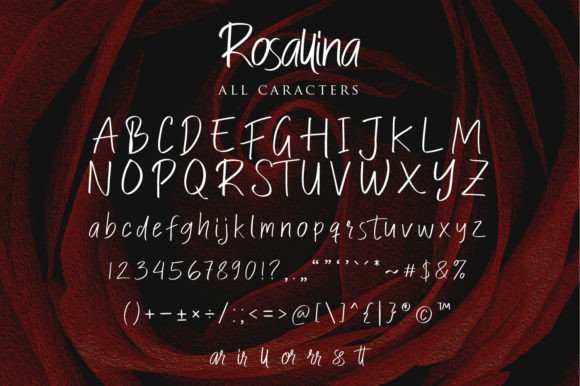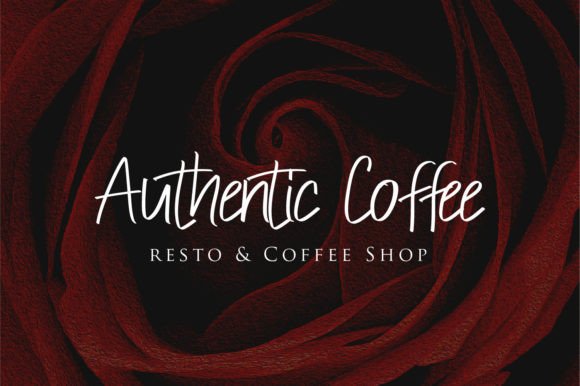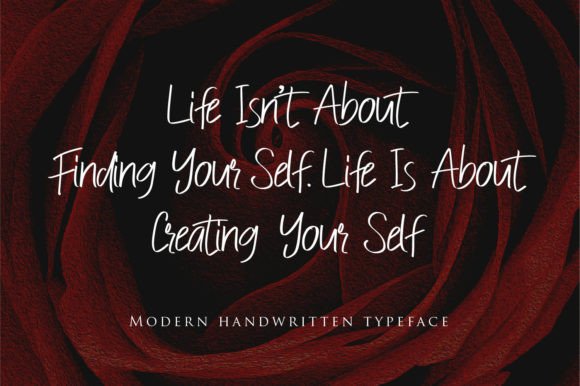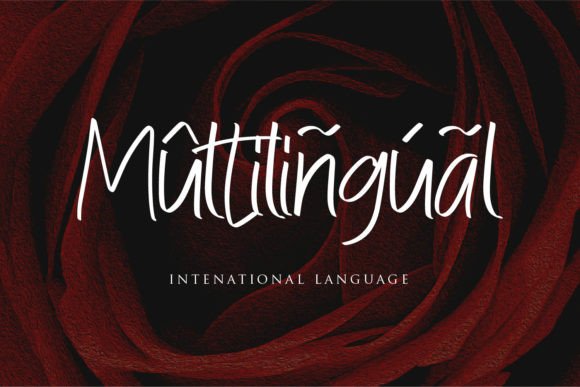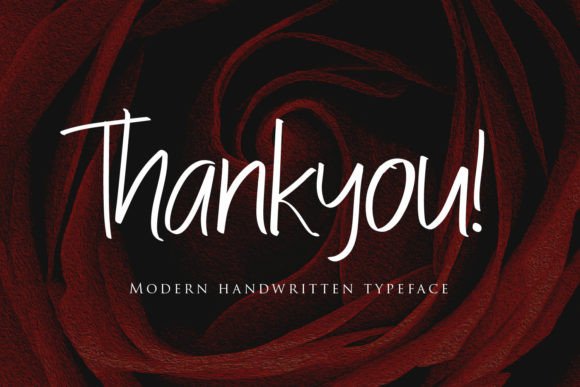
Introduction to Rosallina Font
Rosallina is a modern handwritten script font that embodies beauty and grace.
Its delicate and flowing strokes create an elegant and sophisticated look With its stylish and versatile design, Rosallina is perfect for a wide range of projects, from wedding invitations to branding materials.